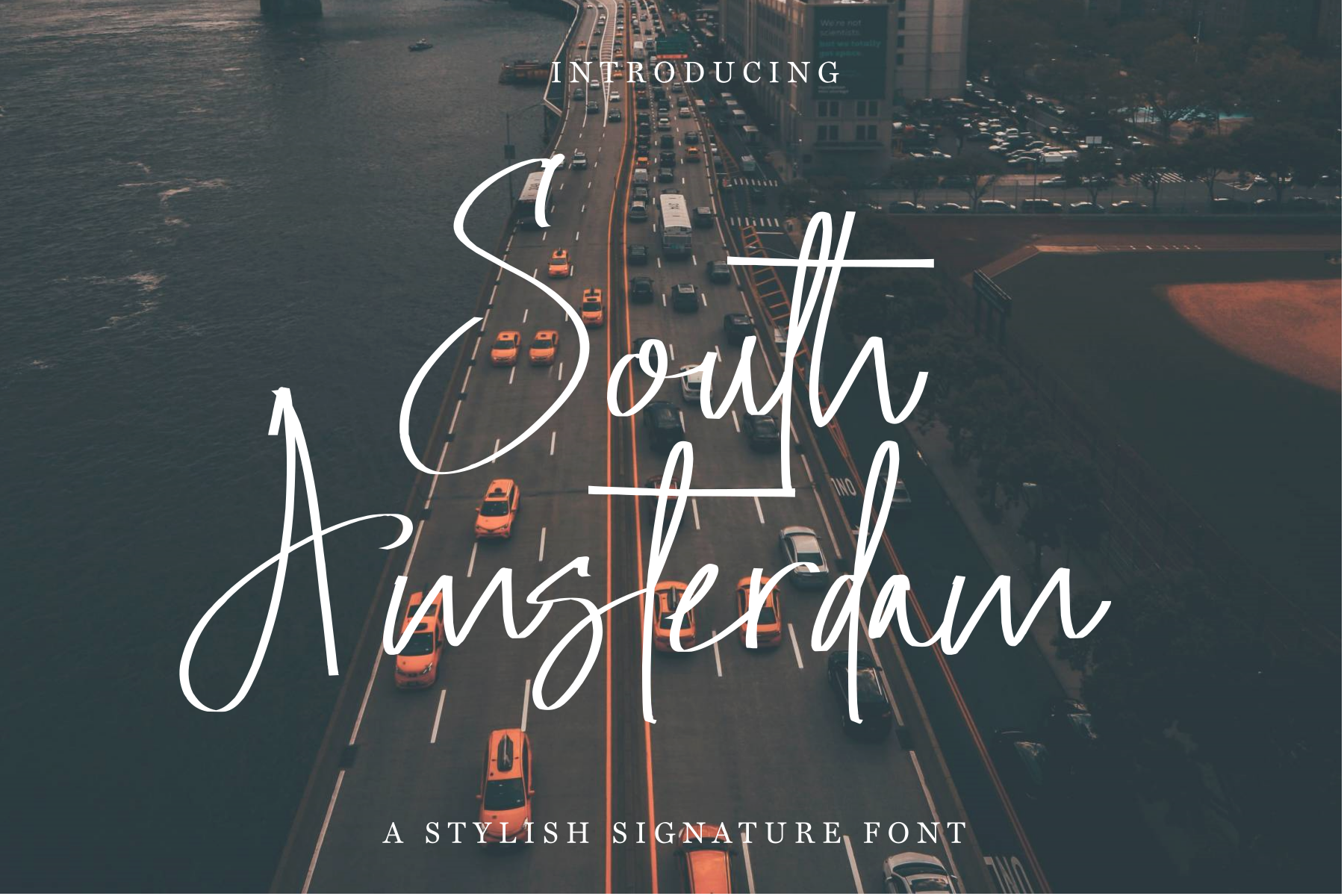
South Amsterdam Signature Font
South Amsterdam is a chic, trendy script font that emanates confidence and versatility. This font is perfect for logos, invitations, stationery, wedding designs, social media posts, advertisements, product packaging, product designs, label, photography, watermark, special events, or anything else.